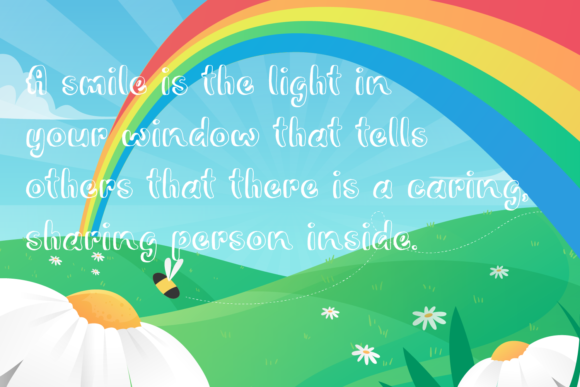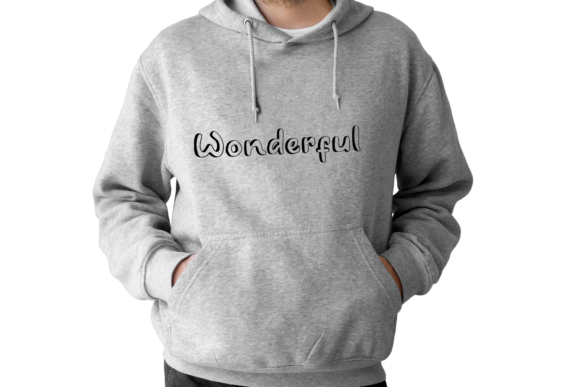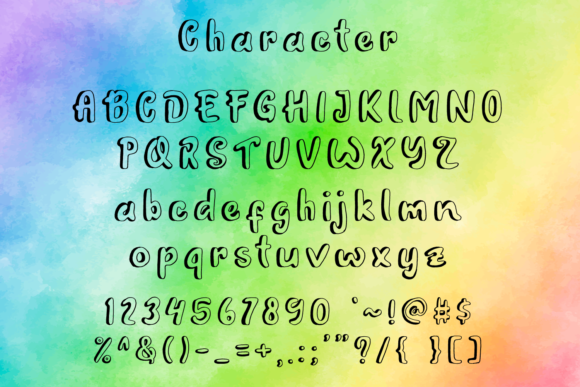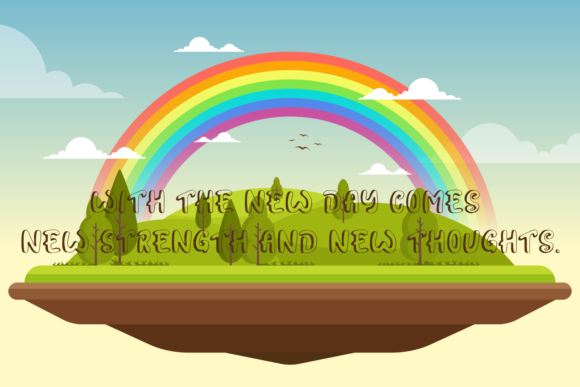
Introduction to Rainbow Drawn Font
Rainbow Drawn is a cool, outlined display font.
Rainbow Drawn Font offers exceptional quality and versatility, making it a valuable addition to your design toolkit. Whether you’re creating for personal projects or commercial use, Rainbow Drawn Font delivers professional results.